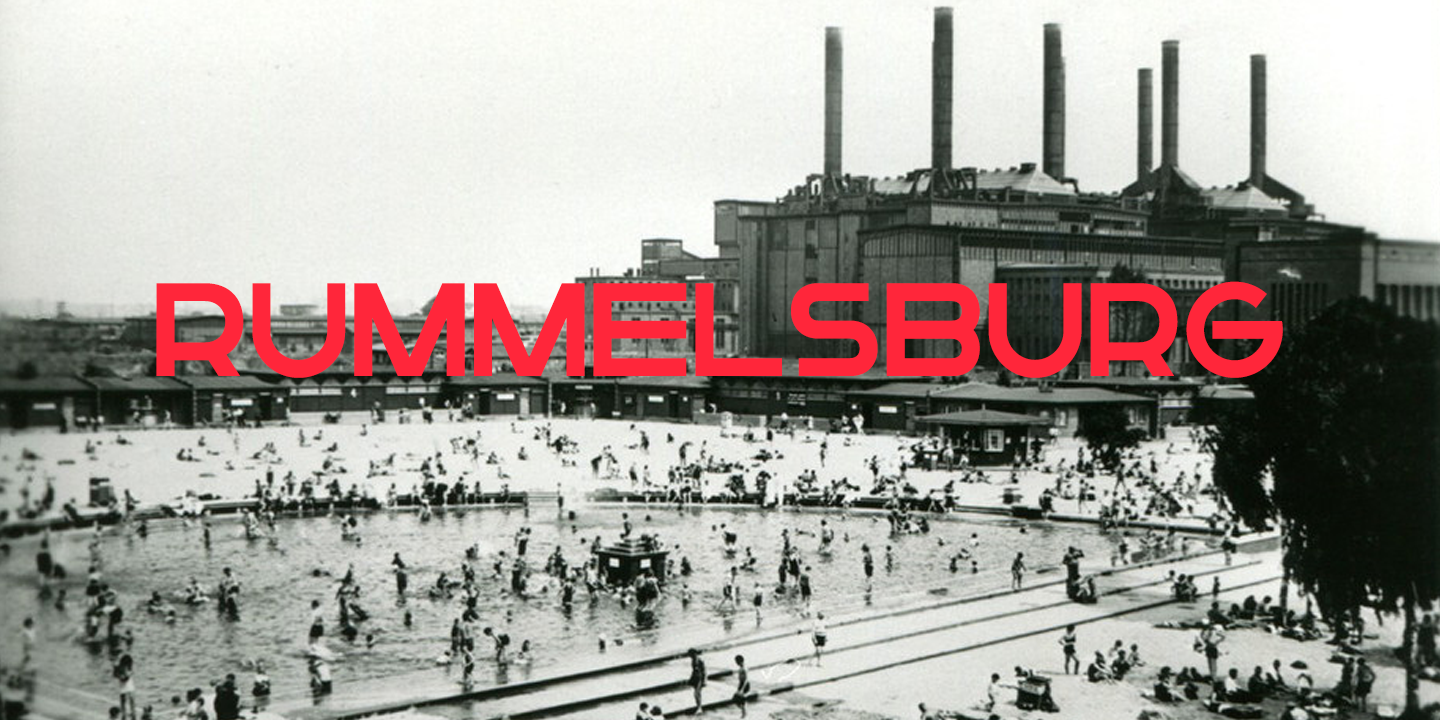
Rummelsburg Font is perfect for industrial branding, urban design projects, architectural signage, construction company logos, machinery documentation, technical manuals, warehouse labeling, manufacturing communications, heavy industry marketing, and contemporary industrial web design.
What makes Rummelsburg Font exciting is its distinctive industrial character that perfectly captures the essence of modern manufacturing and urban development while maintaining exceptional functionality. This typeface features bold, geometric letterforms with strong structural elements that convey reliability, strength, and technical precision. The font's robust appearance and mechanical aesthetic make it ideal for brands in construction, engineering, and industrial sectors seeking to project competence and unwavering dependability.
Rummelsburg Font family includes multiple weight variations: Light, Regular, Medium, Bold, and Black options, each engineered to maintain optimal readability in challenging industrial environments. The family features extended character sets with technical symbols and specialized glyphs designed for industrial documentation and professional communications.
Industrial companies and engineering firms consistently choose Rummelsburg Font Free Download for projects requiring authoritative presence and technical credibility. The font's versatile nature excels in both digital interfaces and physical signage applications, making it perfect for comprehensive industrial branding systems. Whether you're designing safety documentation, technical specifications, or corporate communications, this powerful typeface delivers the industrial strength and professional reliability your projects demand.